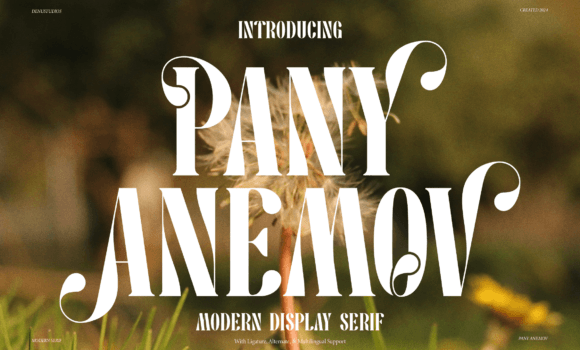
Pany Anemov Font – Free Download Introduction to Pany Anemov Font Pany Anemov is a elegant and stylish serif font, suitable for any projects such as: logos, branding projects, homeware designs, product packaging, mugs, quotes, posters, shopping bags, t-shirts, book